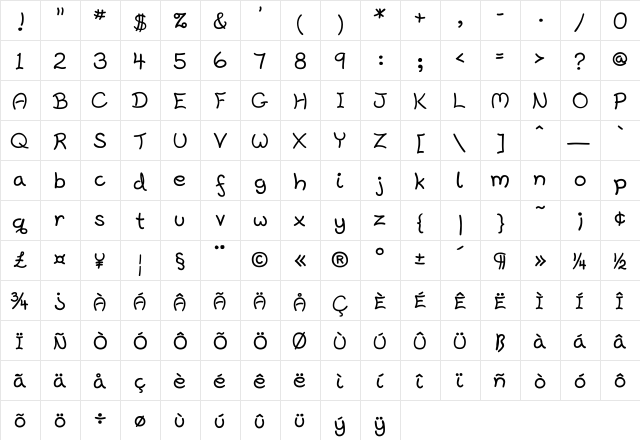
Harrowprint Regular
| Designer | Stephen Charles Doonan |
Design Context for Harrowprint Typeface
Harrowprint offers clean, dependable letterforms without strong stylistic allegiance, making it a practical choice for designers who need flexibility.